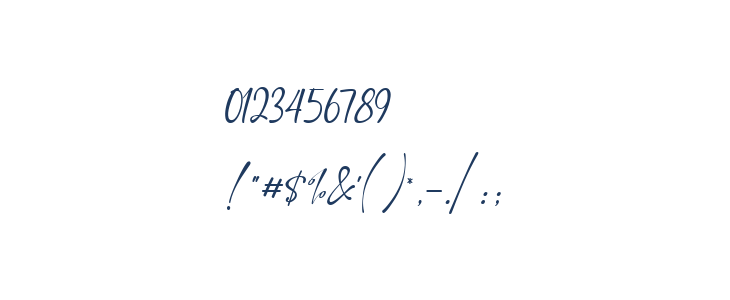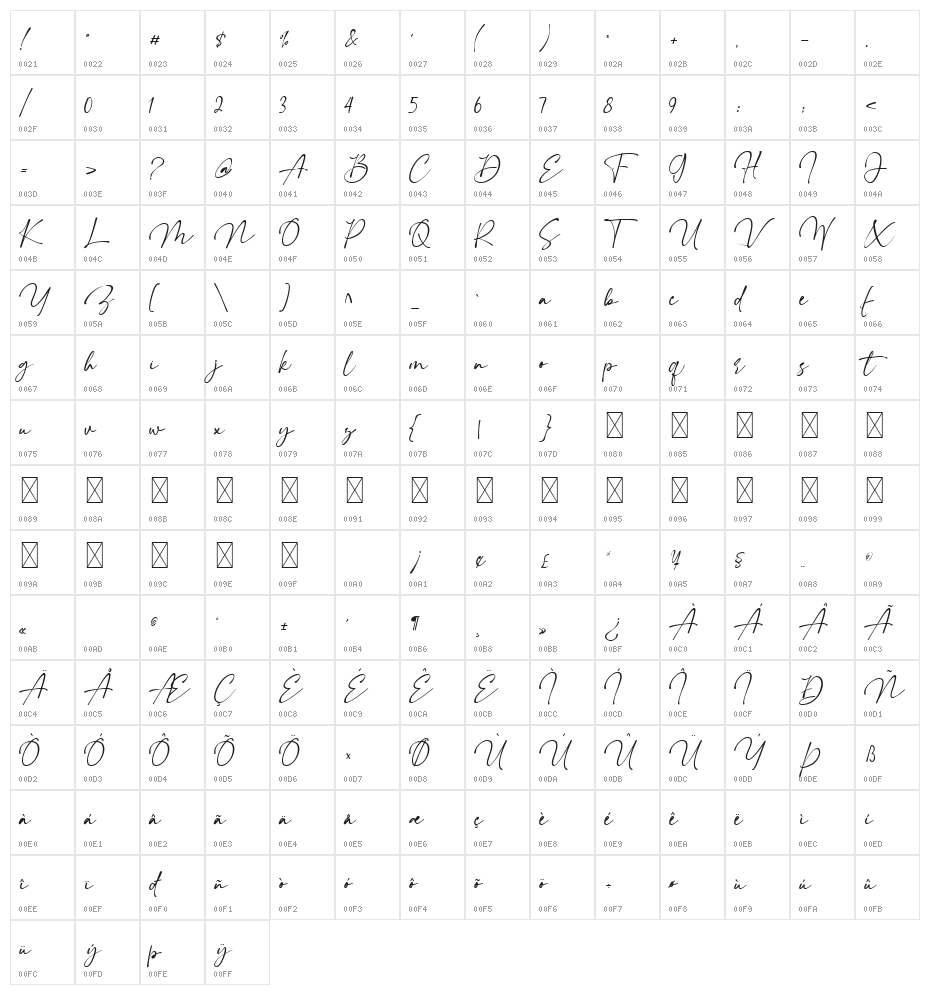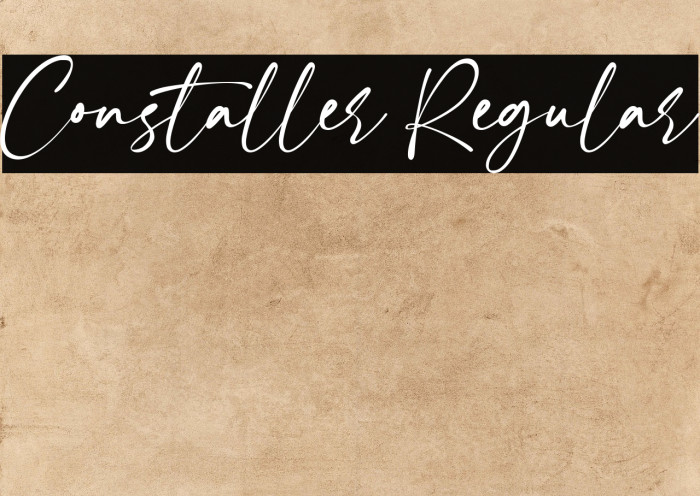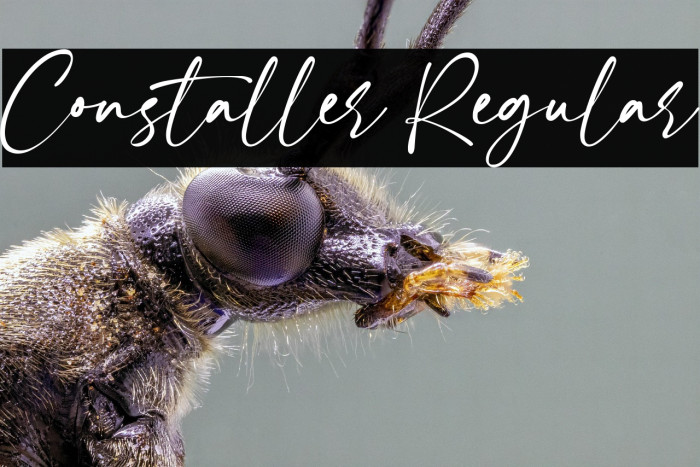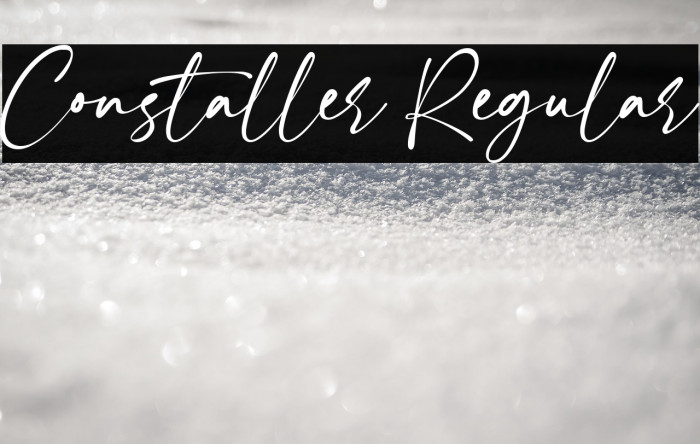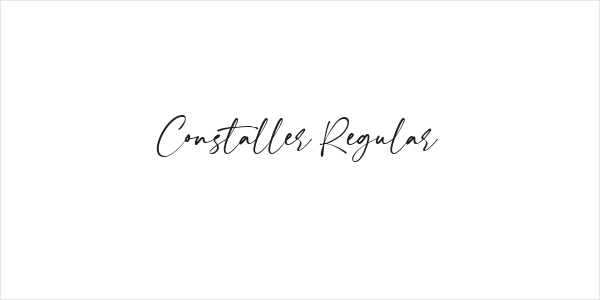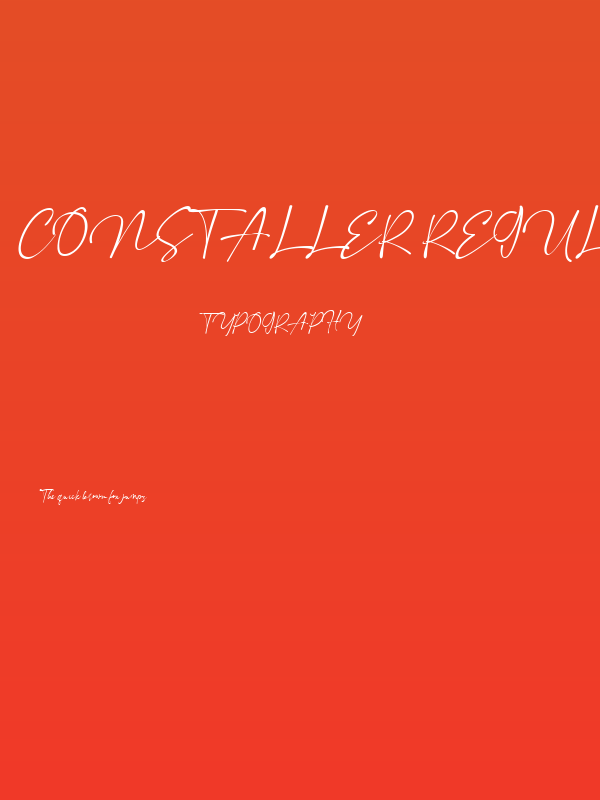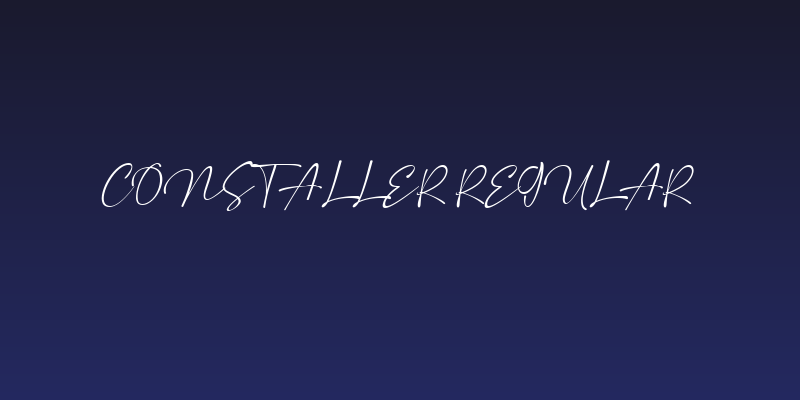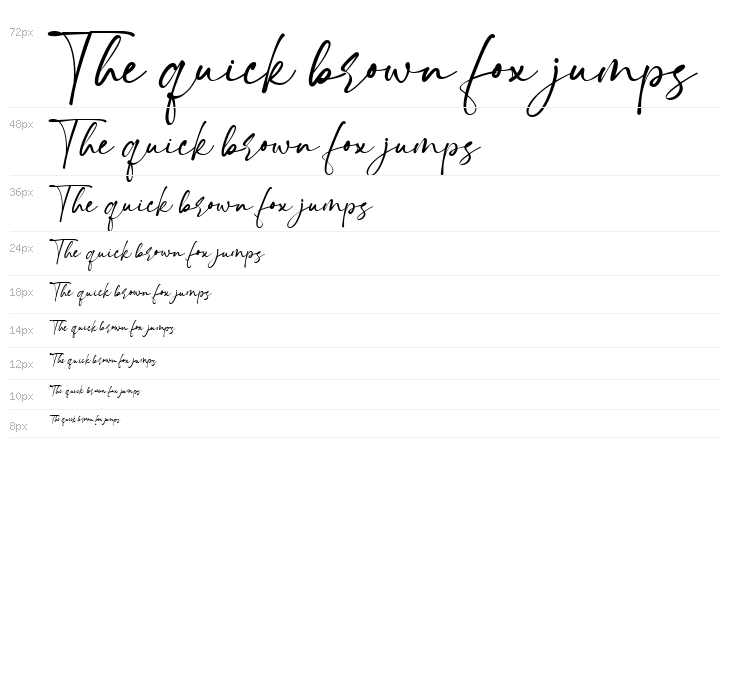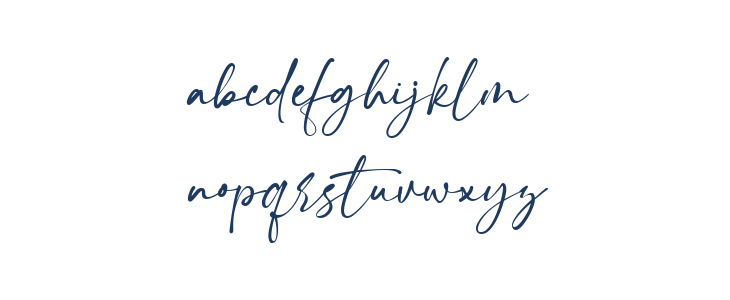
Constaller Regular Font
Constaller Regular Description
This font exudes elegance and fluidity, characterized by its cursive, handwritten style. The letters are connected with smooth, flowing lines, giving it a sophisticated and artistic appearance. The uppercase letters are slightly more elaborate, with graceful loops and swirls, while the lowercase letters maintain a consistent flow. The numerals and special characters are designed to match the overall aesthetic, ensuring a cohesive look. This font is perfect for projects that require a personal touch, such as invitations, greeting cards, or branding materials.
| Overall Style | Elegant, Artistic |
| Proposed Projects | Ideal for wedding invitations, personal branding, greeting cards, and artistic projects. |